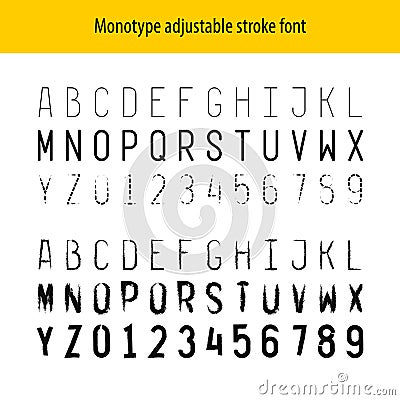
Monotype Letters Stroke Font Alphabet And Numbers. Thin Line With Adjustable Width, Hatching And Design. Cartoon Vector
Monotype letters stroke font alphabet and numbers. Thin line with adjustable width, hatching and design. Vector Illustration
Monotype letters stroke font alphabet and numbers. Thin line with adjustable width, hatching and design. One width symbols set. You can apply any brush type to letters center line.